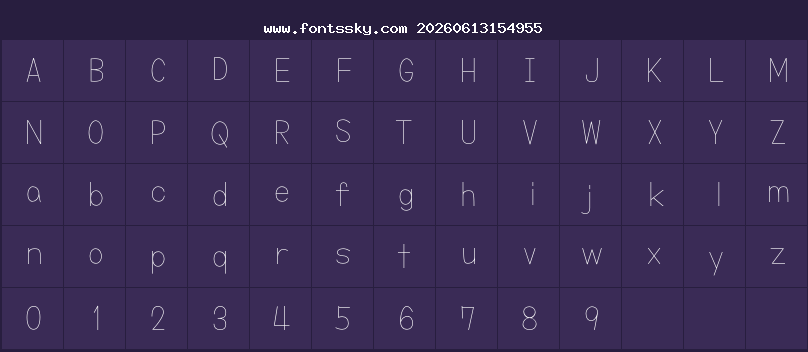
たぬゴ角 極細 Preview
• Font Name: たぬゴ角 極細
• Full Font Name: たぬゴ角 極細
• PostScript Name: Tanugo-S-ExtraLight
• Designer: たぬき侍
• Manufacturer: Tanukizamurai
About たぬゴ角 極細.otf
たぬゴ角 極細.otf is a modern, elegant sans-serif font designed for ultimate readability and visual harmony. Perfect for branding, headlines, web design, and print materials.